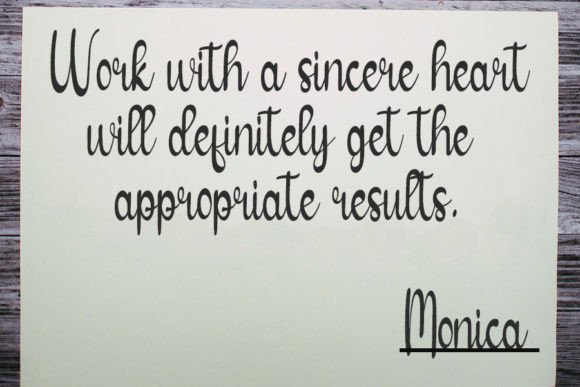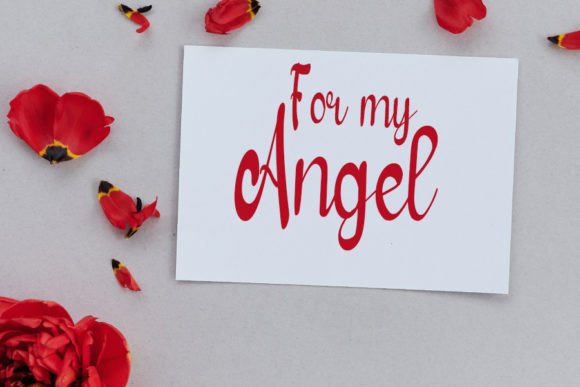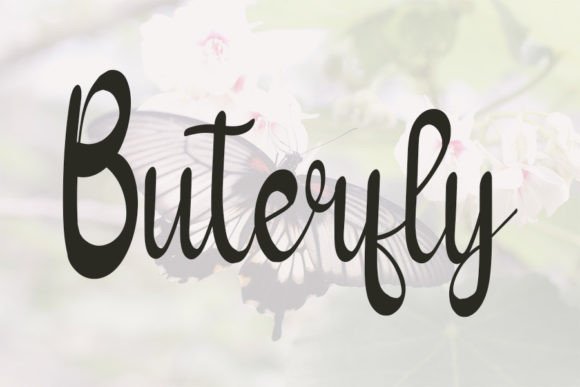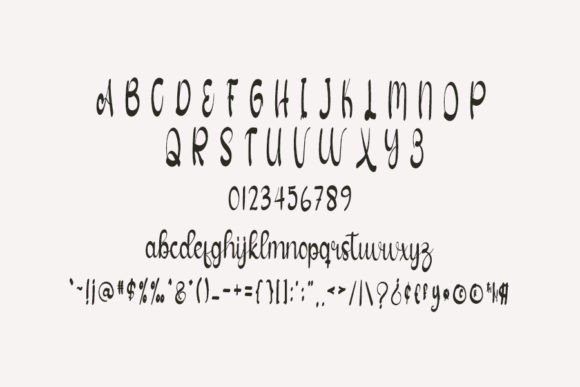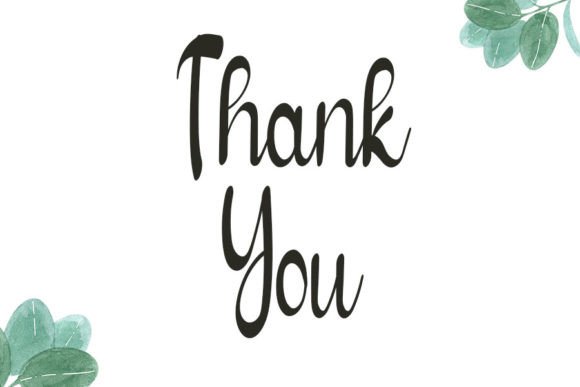
Discovering Your New Favorite Font
As a designer, you’ve likely experienced that moment when you stumble upon a font that perfectly captures the essence of your project. It’s like finding a missing puzzle piece – everything falls into place, and your creativity is ignited. This is exactly what happened when the team behind Beloved Font set out to create a friendly handwritten font that would become a true favorite.
Beloved Font is designed to maintain its classy calligraphic influences while feeling contemporary and fresh. This delicate balance makes it an ideal choice for designers looking to add a touch of elegance and warmth to their projects. Whether you’re working on a branding campaign, a wedding invitation, or a social media post, Beloved Font is sure to leave a lasting impression.
Key Features of Beloved Font
- Unique Characteristics: Beloved Font features a unique blend of vintage and modern elements, with intricate details and ornaments that evoke a sense of nostalgia and elegance.
- Kerning and Ligatures: Beloved Font includes advanced kerning and ligature features, ensuring that text flows smoothly and professionally, even in complex layouts.
Beloved Font Review
As a designer, I was excited to dive into the “Beloved Font” and see what it had to offer. Overall, I have mixed feelings about this font.
- ✨ The font’s script-like curves and flourishes add a touch of elegance and sophistication to any design project.
- ✨ The font is highly legible, making it a great choice for body text and longer passages.
- ✨ The font’s character set is comprehensive, including a wide range of symbols and punctuation marks.
- ⚠️ The font’s bold and italic weights can feel a bit uneven, with some letters appearing more condensed than others.
- ⚠️ The font may not be the best choice for headings or titles, as it can feel a bit too ornate and overwhelming.
- ⚠️ The font’s performance can be a bit sluggish, particularly at larger font sizes.
Overall, I think the “Beloved Font” has some great qualities that make it a solid choice for certain design projects. However, it may not be the best fit for every project, particularly those that require a more straightforward or modern aesthetic.
“Beloved Font” is ideal for:
Creating romantic and elegant titles and headings.
Designing wedding invitations and stationery.
Adding a touch of sophistication to business presentations and documents.